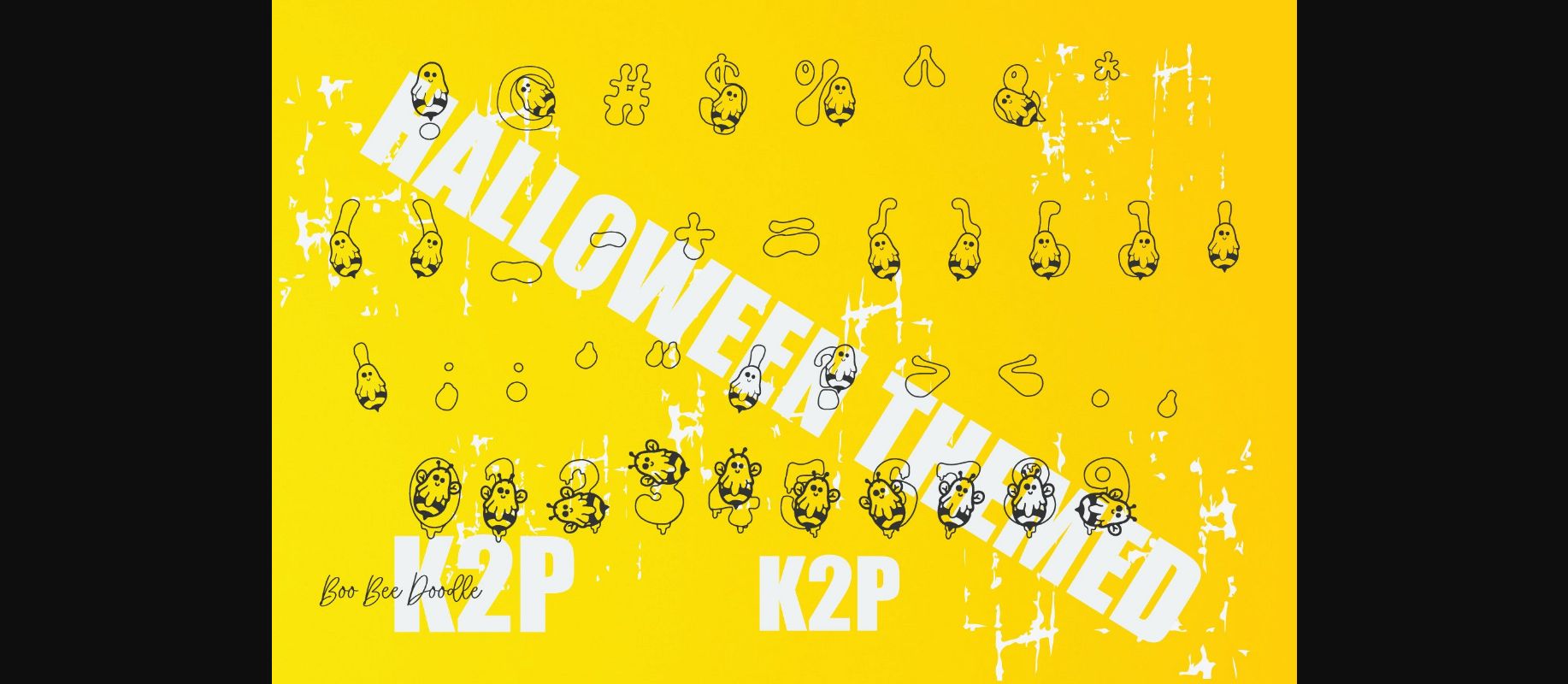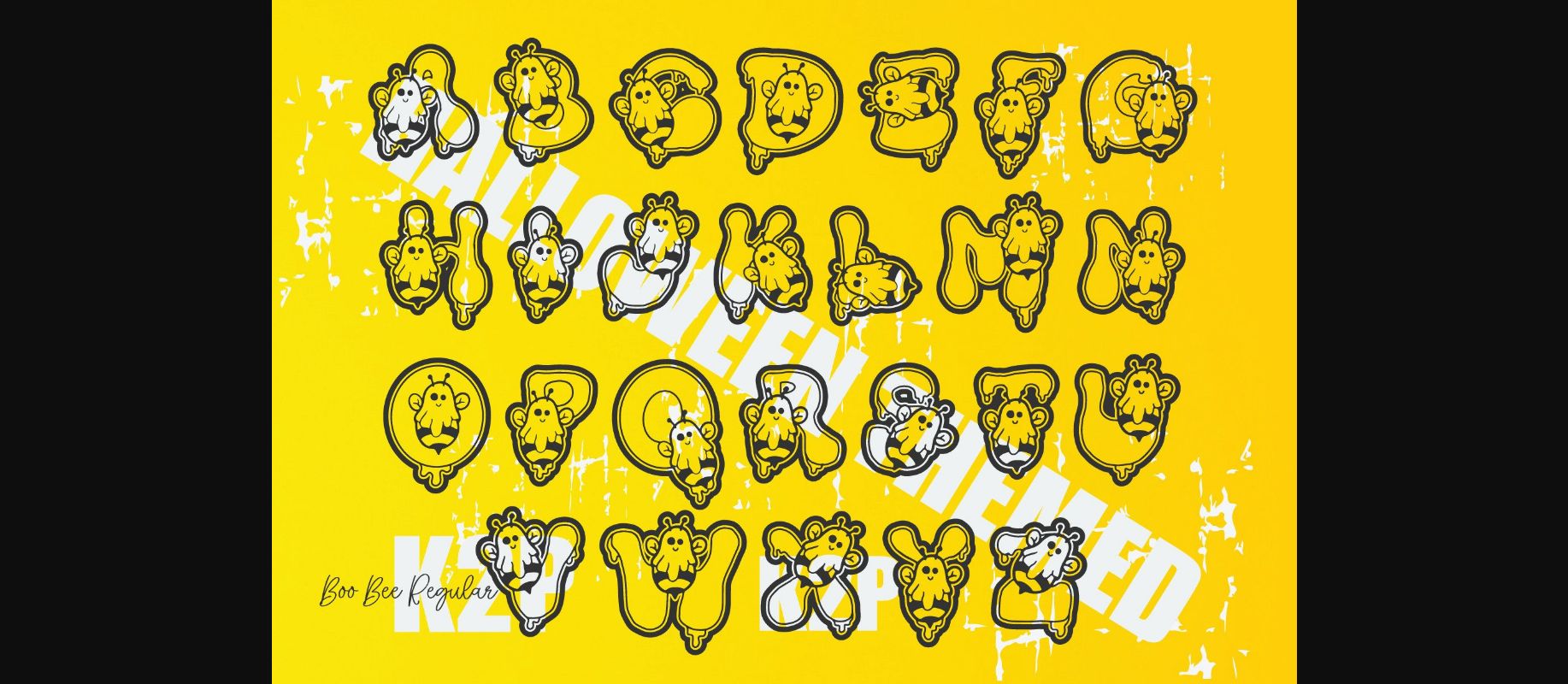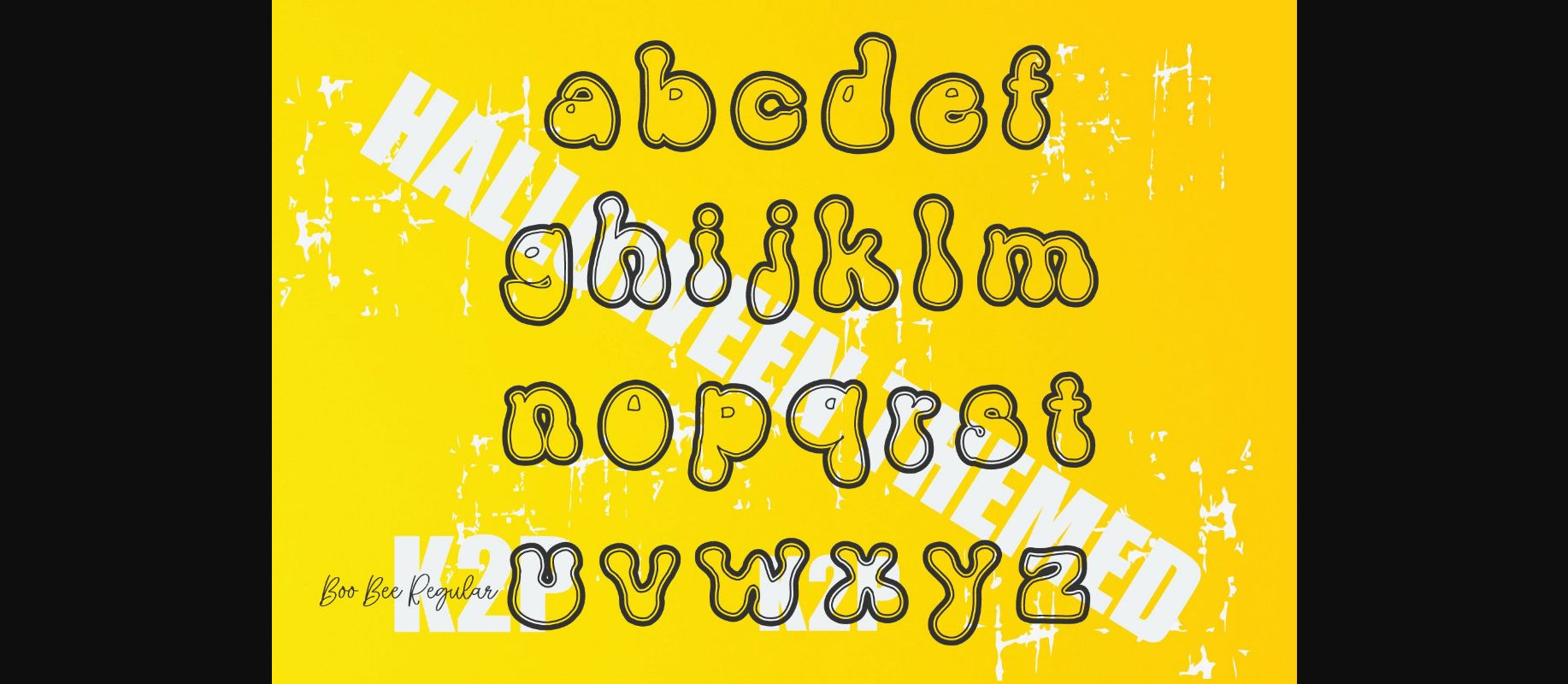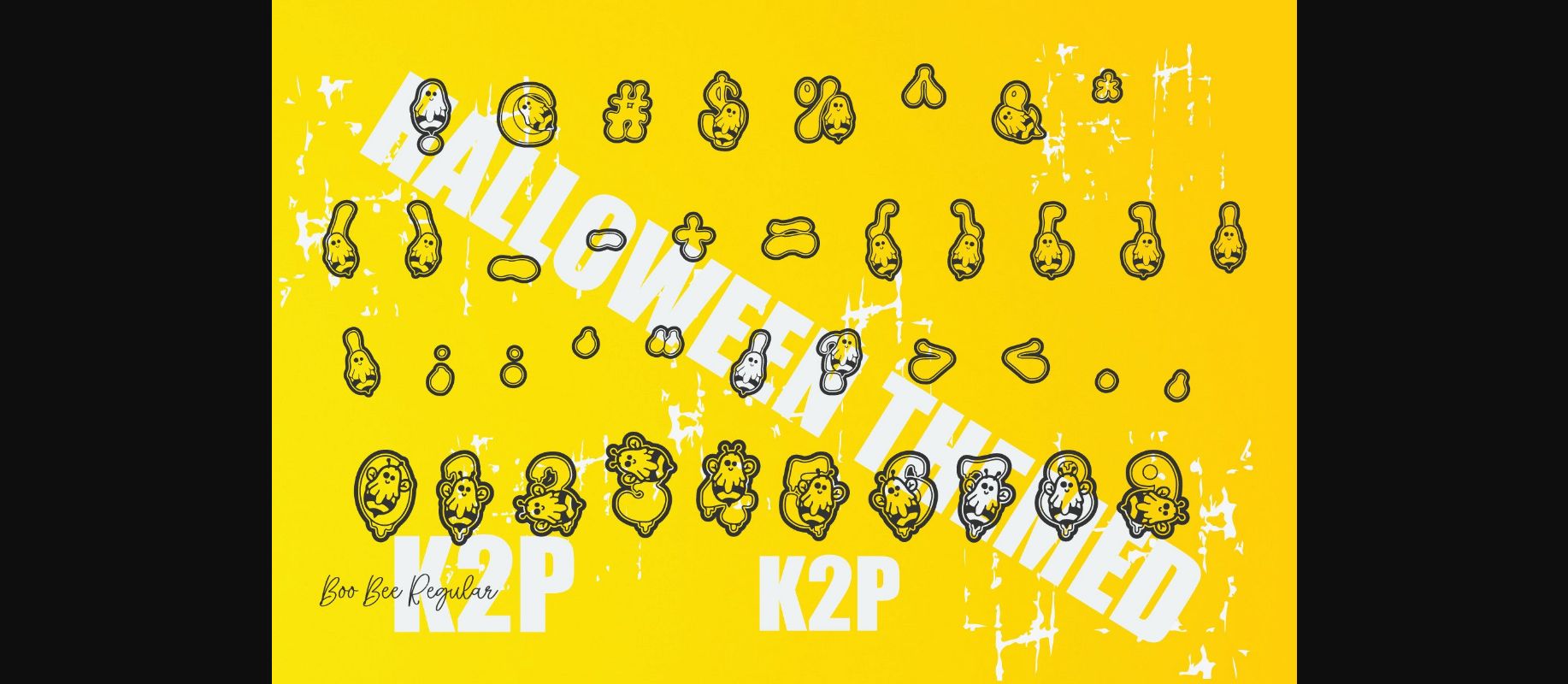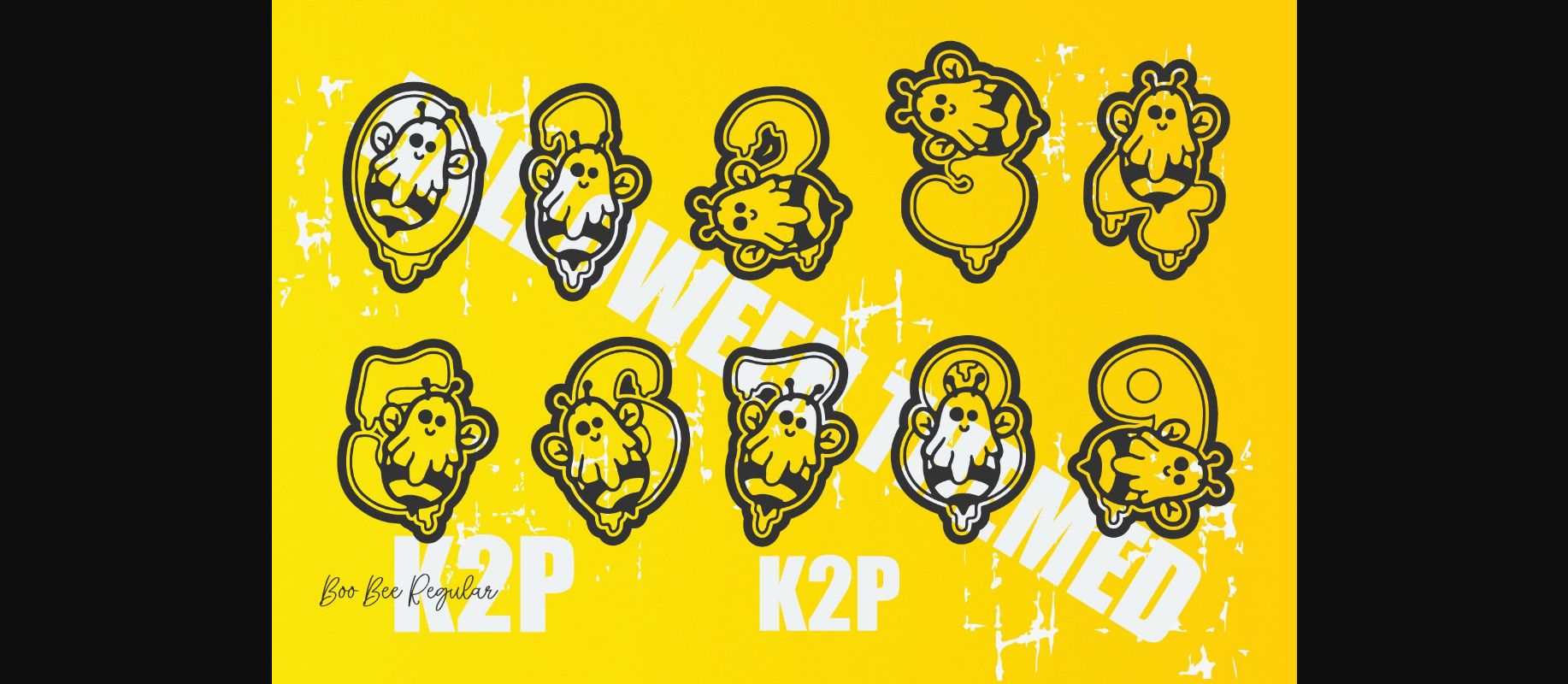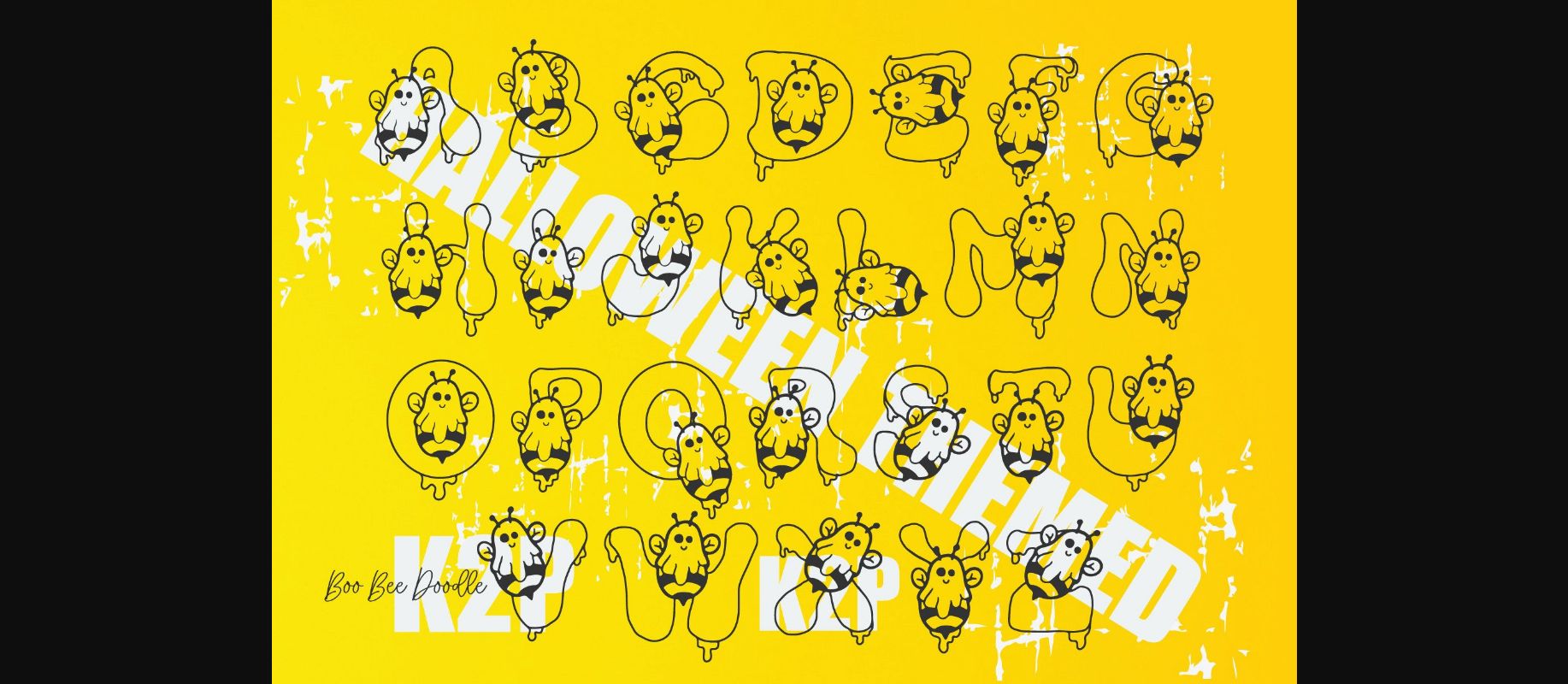
Boo! Bee! Font
About Boo! Bee! Font
Boo! Bee! is a thick-lettered and spooky decorative font. It is perfectly suitable for any Halloween-related project or crafty idea! The only limit is your imagination.